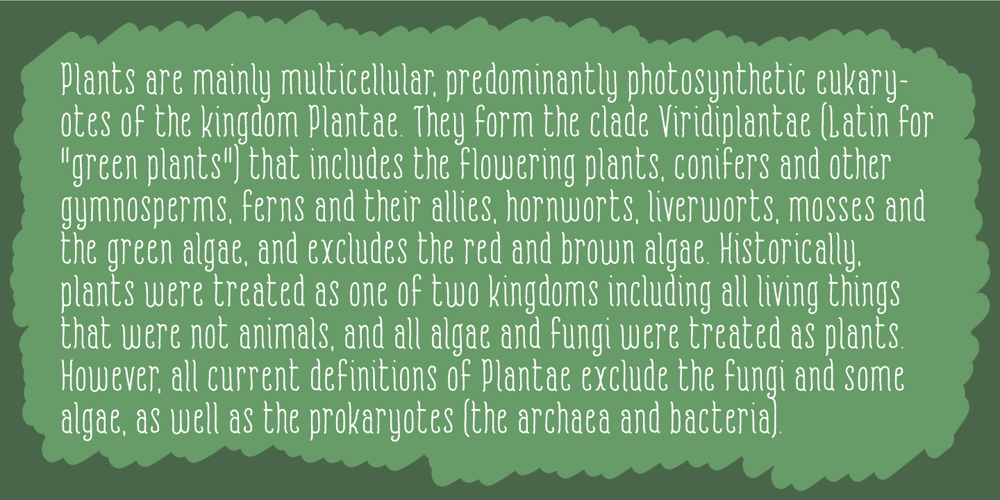
Romantisk Font Family was designed by Jakob Fischer and published by PizzaDude.dk. Romantisk contains 2 styles and family package options. Romantisk is a handmade font with 21 ligatures (substitution for repeating letters) and 140 swashes for both upper- and lowercase. Perfect for invitations, menus, posters and various products